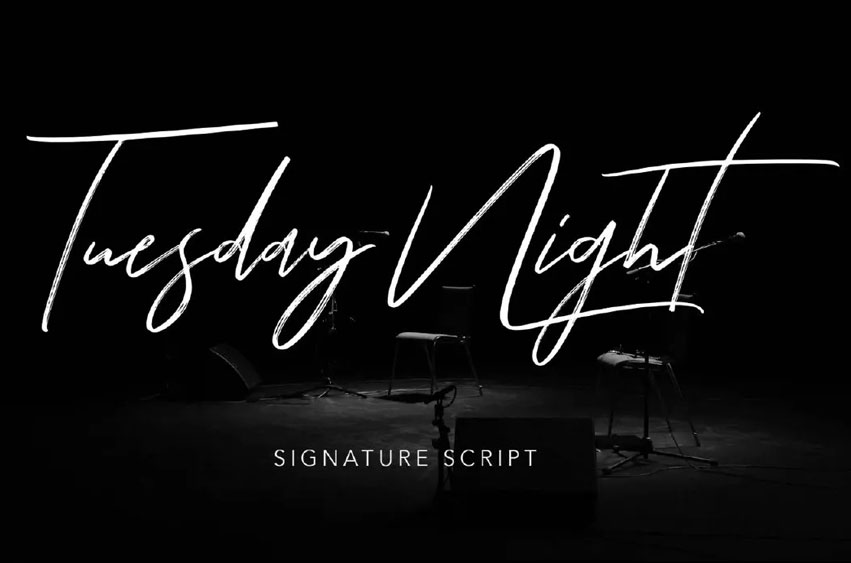
Tuesday Night Font was done by the font forestry. Tuesday Night Script, Calligraphy Font for writing which has a beautiful wave and natural flow. It looks nice on use on posters, wall graphics, greeting cards, calendars, food(labels), bill boards among others.